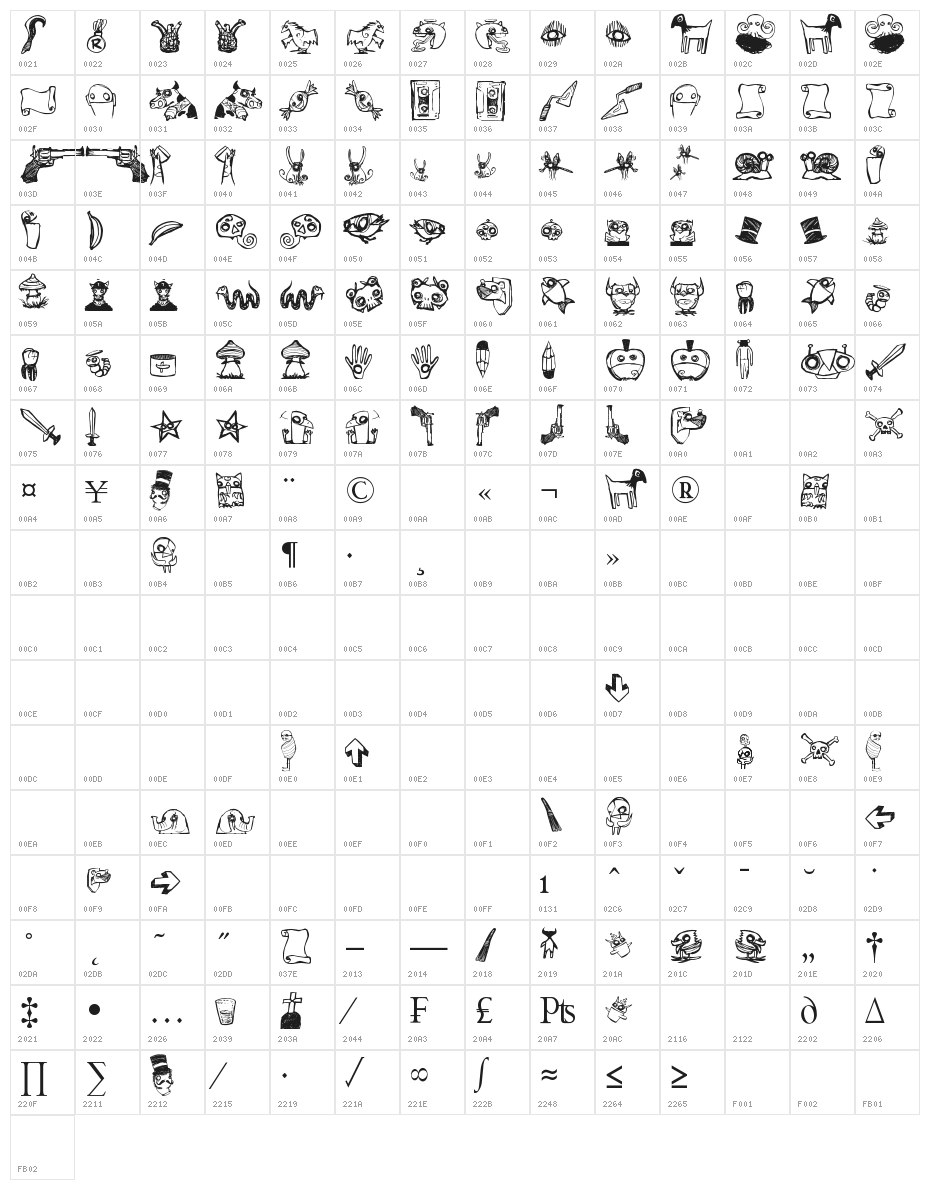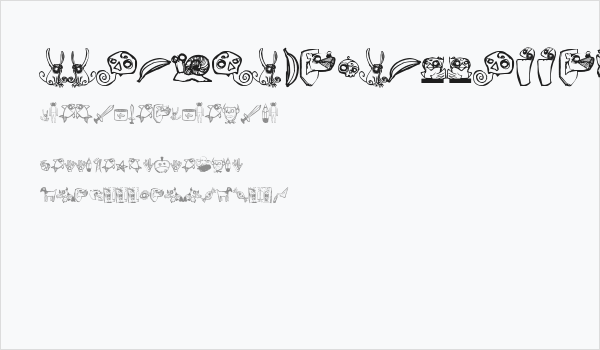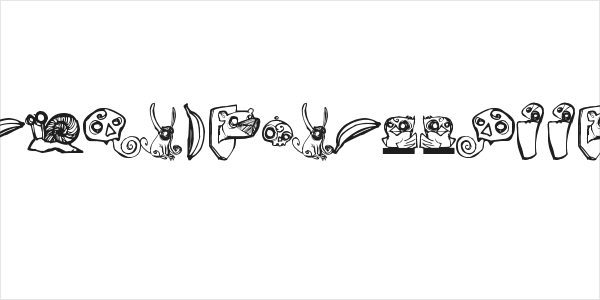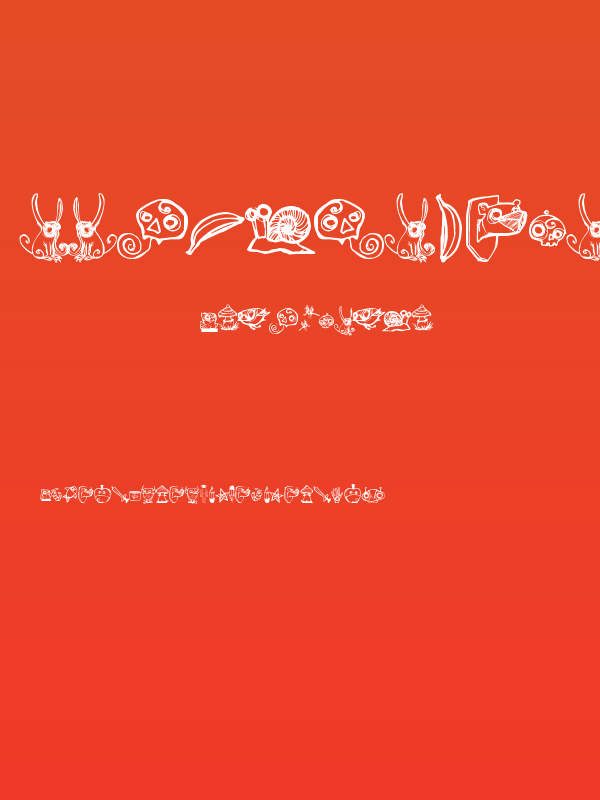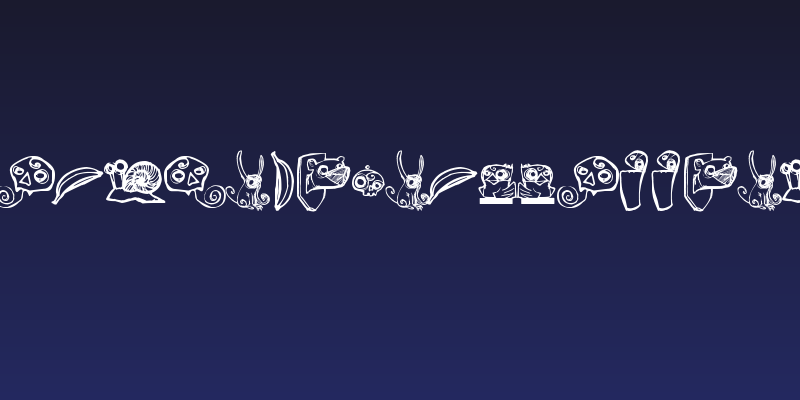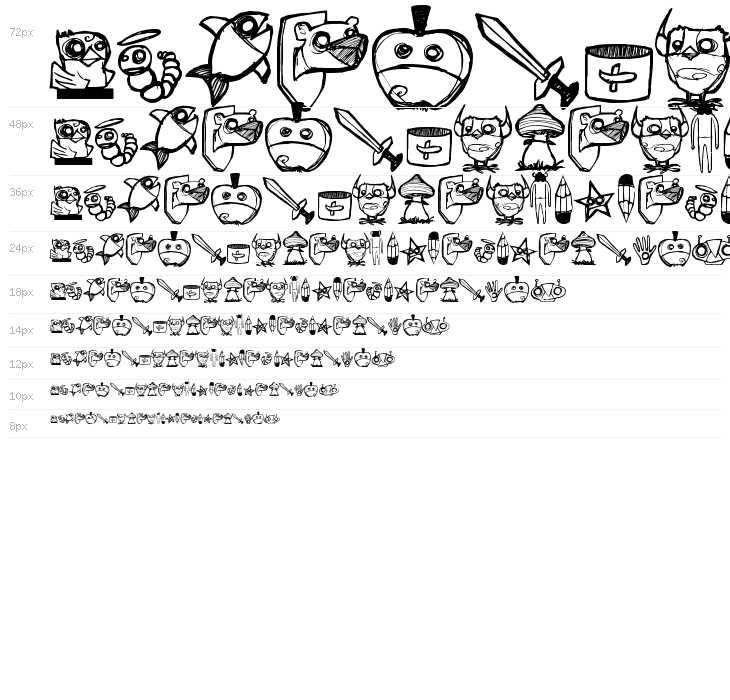
ABOMINAL SAMUTOJJ aim Font
ABOMINAL SAMUTOJJ aim Description
This font features a whimsical and playful design, incorporating elements of nature and fantasy. Each character is represented by a unique illustration, such as animals, insects, and abstract shapes, creating a lively and imaginative appearance. The font is highly decorative, with intricate details and a hand-drawn style that adds a sense of charm and creativity. The characters are bold and expressive, making them stand out with their distinct and artistic flair. This font is perfect for projects that require a touch of fun and creativity, offering a unique visual experience.
| Proposed Projects | Ideal for children's books, creative posters, fantasy-themed invitations, and artistic branding. |